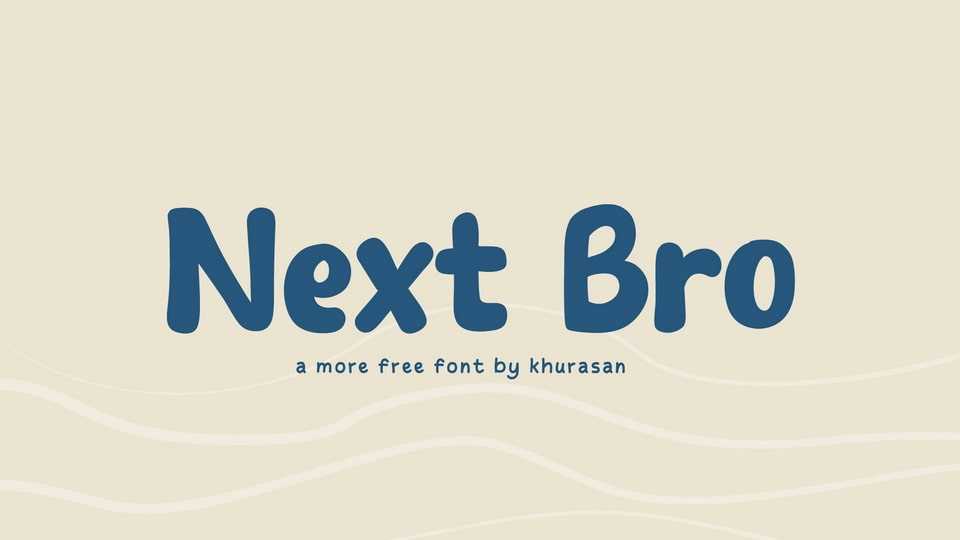
Download Next Bro font, the typeface that captures the friendly and casual essence of comic book lettering. Each character is designed with a carefree, hand-drawn quality that radiates an air of approachability and humor.